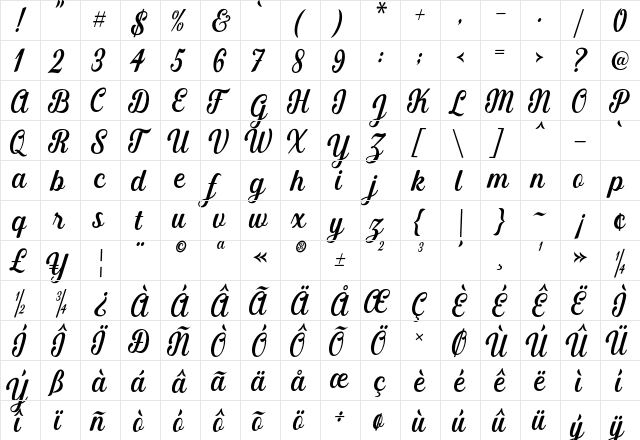
Merciana Script Regular
| Foundry | Akifatype Studio |
| Designer | Akifatype Studio |
Design Context for Merciana Script Typeface
Merciana Script flows with the natural rhythm of handwritten lettering, making it ideal for designs that call for warmth and personal expression.
Font Pairing: Combine Merciana Script with a simple geometric sans for maximum contrast — the tension between flowing curves and clean structure is a classic typographic pairing.
Pro Tip: Pair Merciana Script with a clean sans-serif for supporting text. The contrast between fluid script and geometric structure creates an elegant typographic hierarchy.